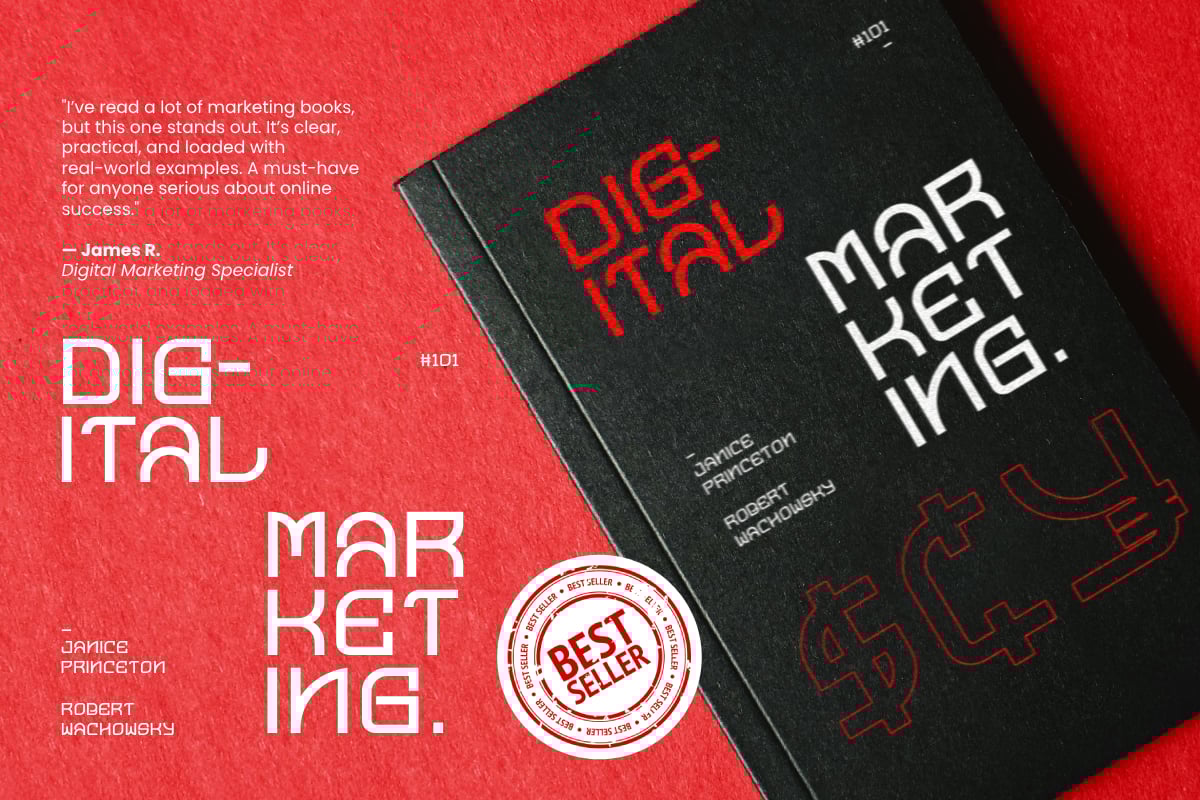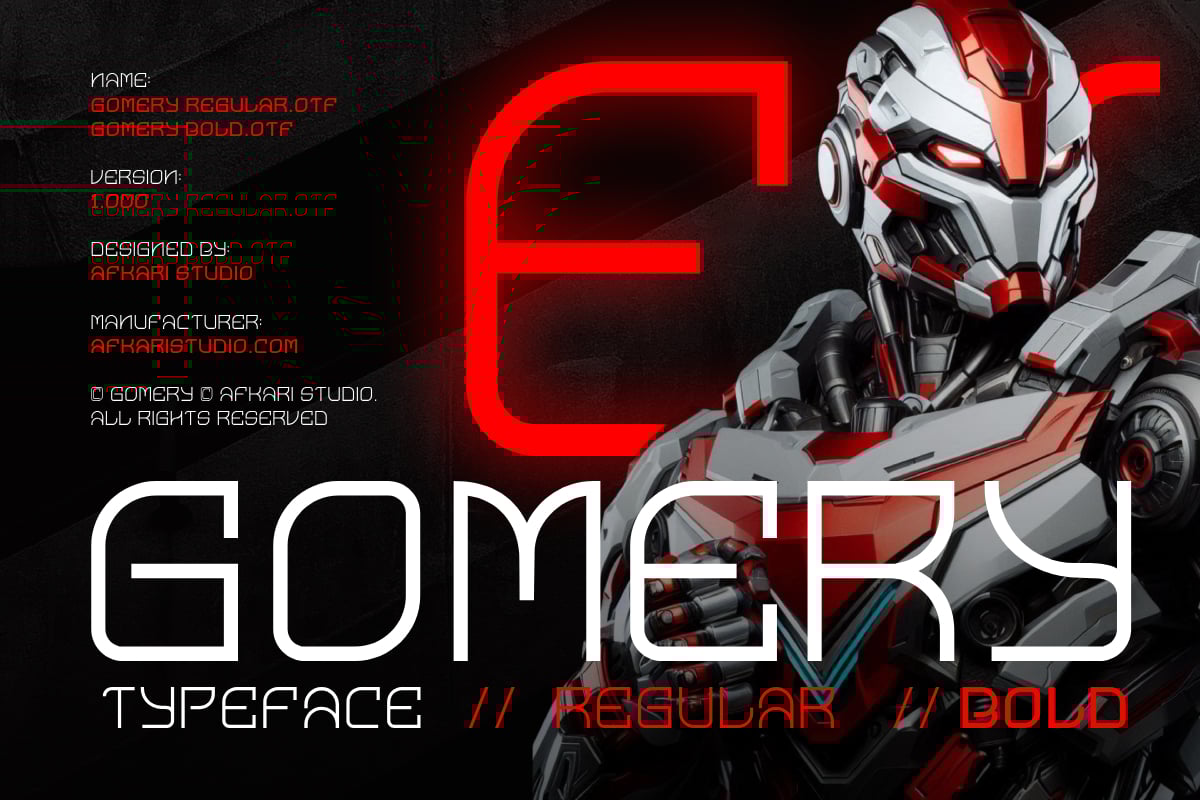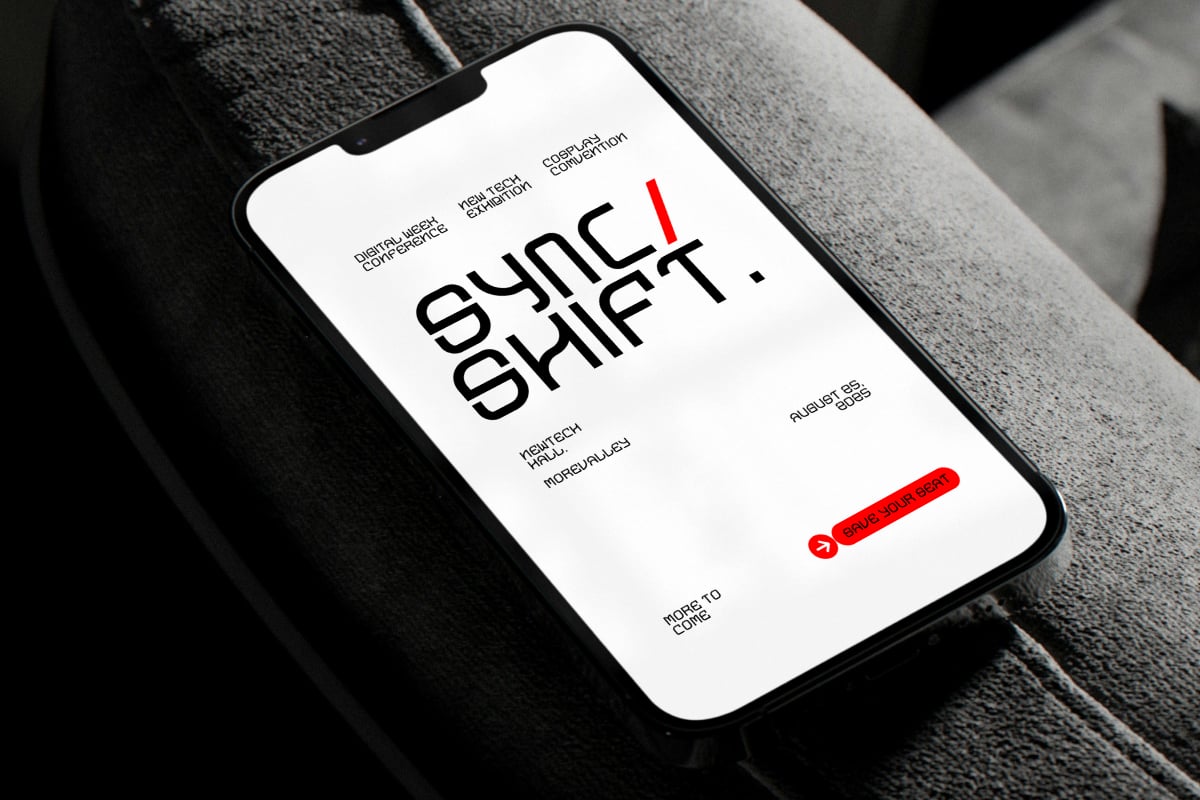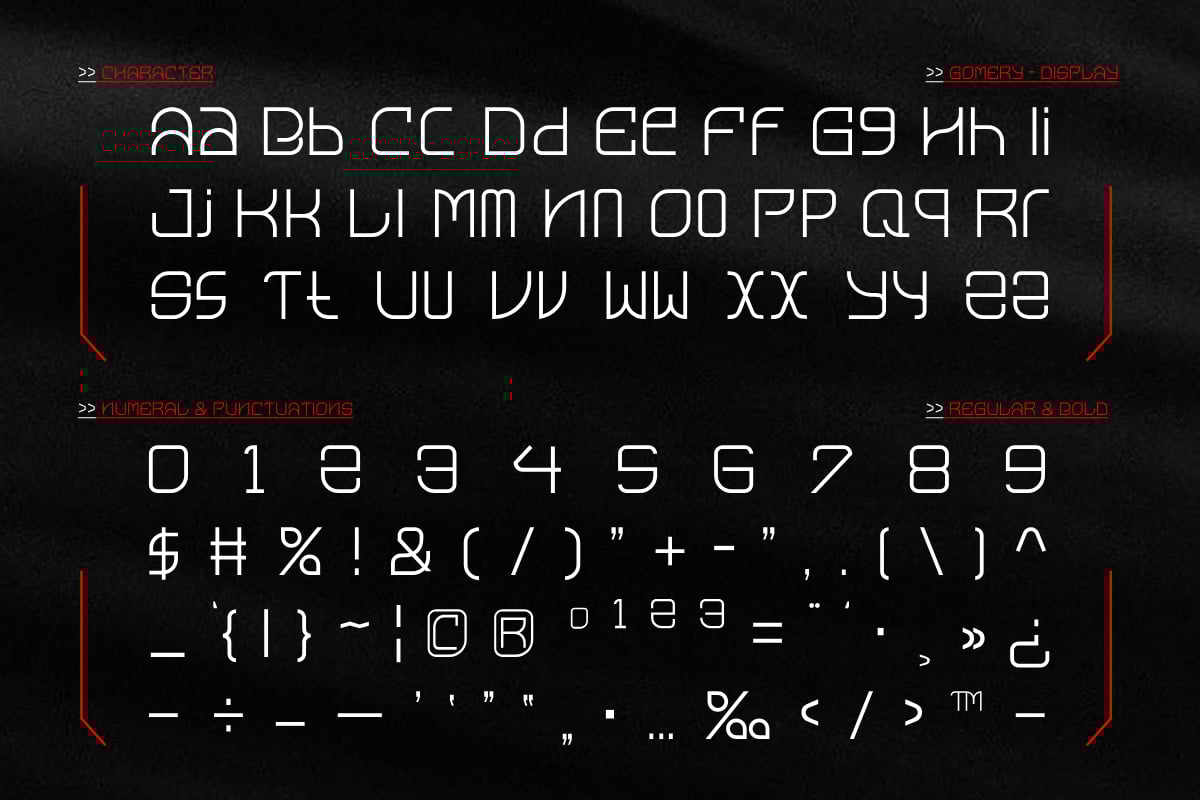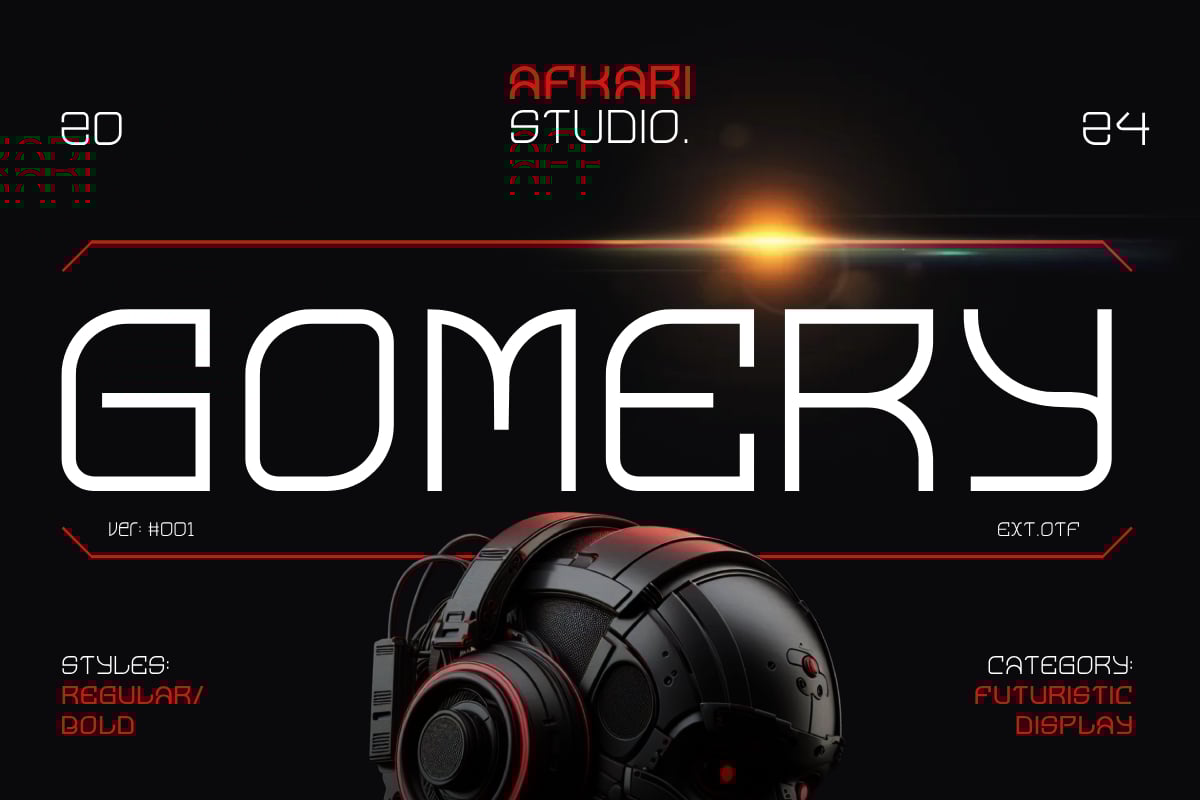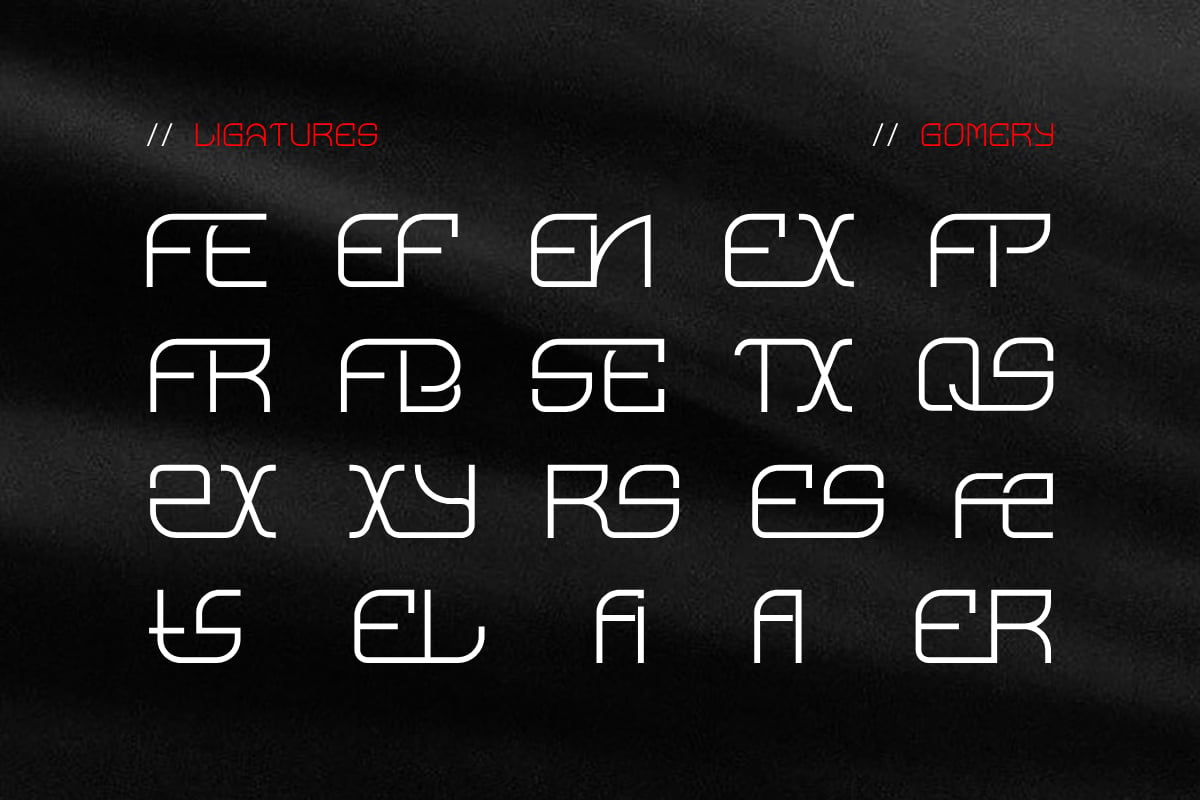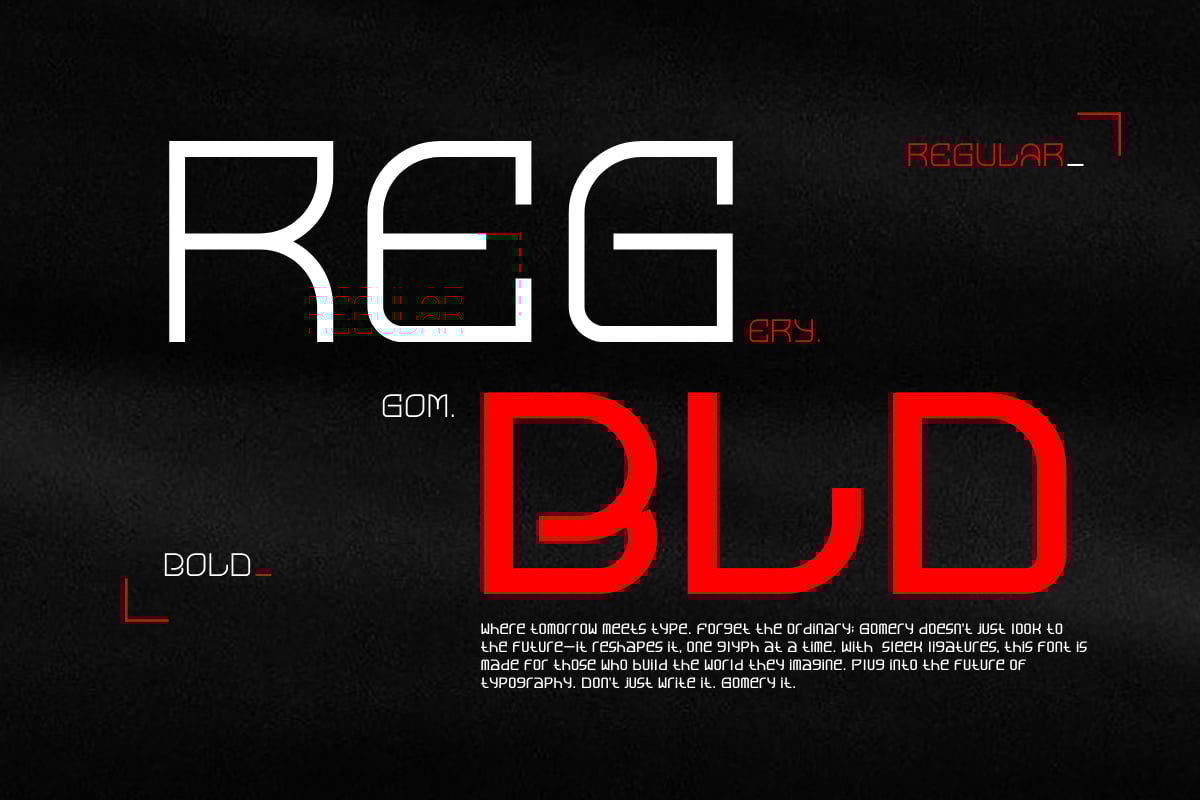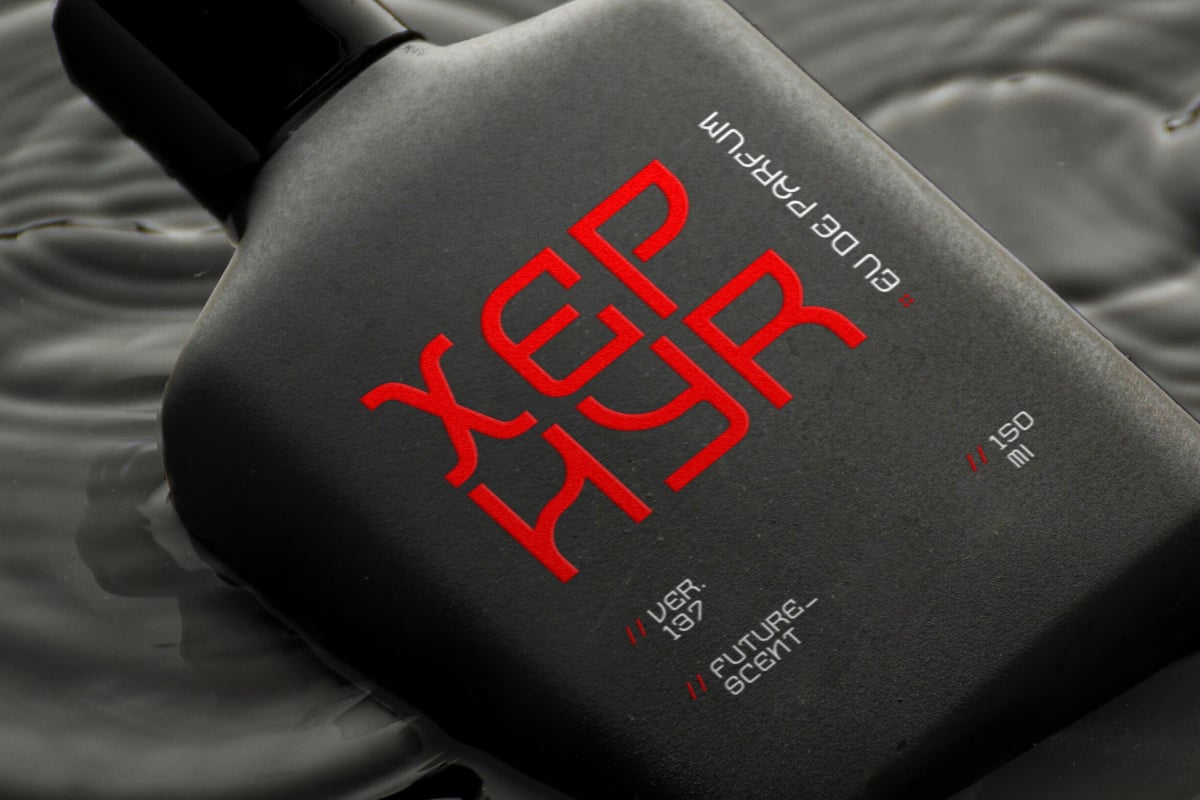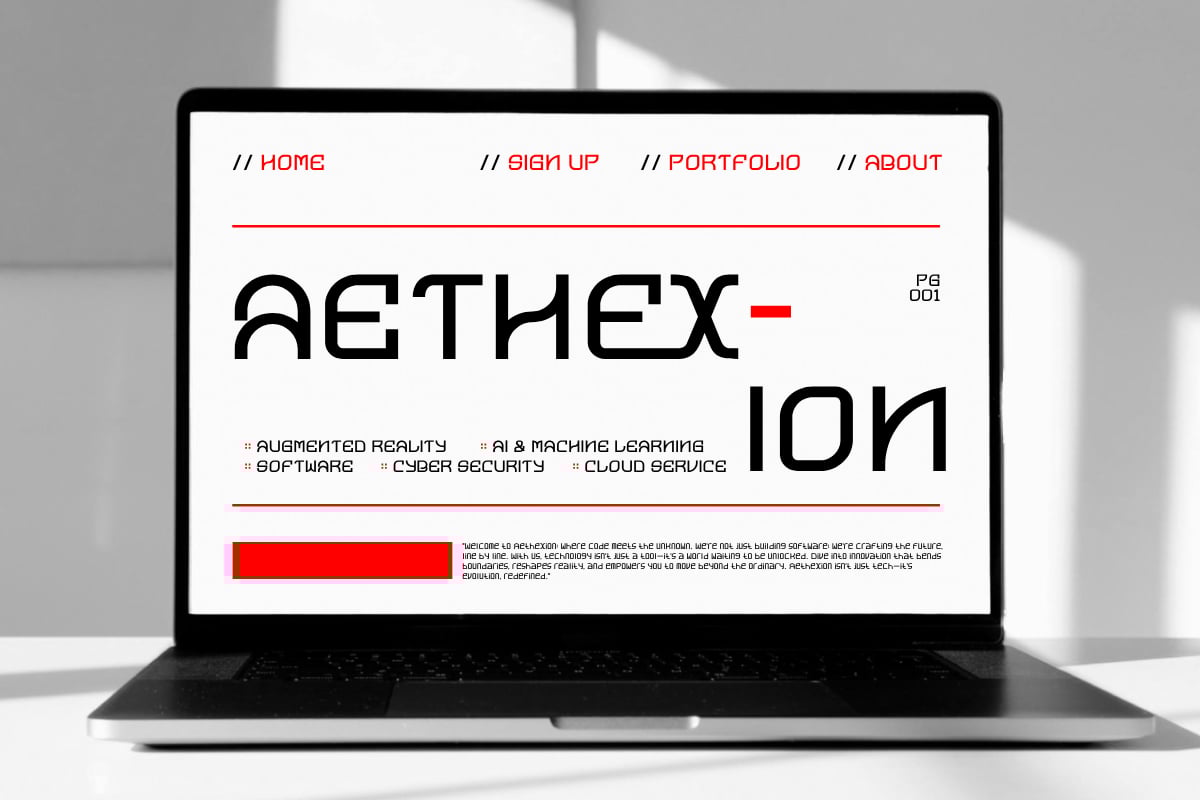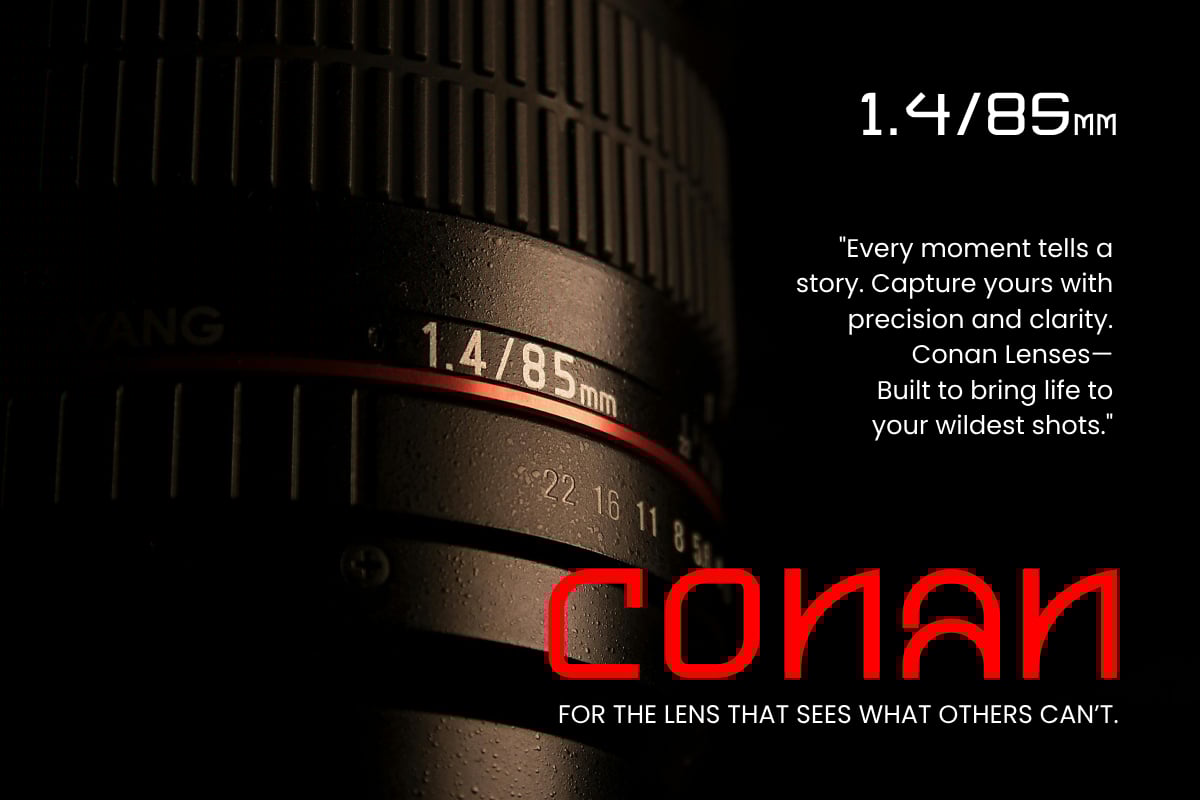
Gomery - Modern Futuristic Display Font
Introducing Gomery, a cutting-edge display font designed to bring a sleek, modern, and futuristic edge to your projects. Perfect for tech-oriented branding, digital interfaces, and forward-thinking design, Gomery combines clean, geometric lines with striking curves, creating a bold presence that stands out in any layout.
Each character is meticulously crafted to balance readability with a stylish, sci-fi appeal, making it ideal for logos, posters, headlines, and digital content. Elevate your designs into the future with Gomery, where minimalism meets innovation.
Highlighted Features:
- Complete set of uppercase and lowercase letters, numerals, and punctuation marks
- Unique alternates and ligatures for enhanced character variation
- Multilingual support including characters such as ä, ö, ü, Ä, Ö, Ü, ß, ¿, and ¡
Gomery transcends mere functionality; it becomes a beacon of creativity and innovation. Its adaptability allows it to seamlessly integrate into tech-driven projects, futuristic branding, sci-fi book covers, modern logos, sleek posters, high-tech interface designs, contemporary apparel, and more.
The font’s versatility is matched only by its ability to inject a sense of dynamism and energy into every project it graces. Whether it’s amplifying a tech-savvy advertisement or adding a touch of modernity to a digital platform, Gomery lends a futuristic charm that captivates audiences.